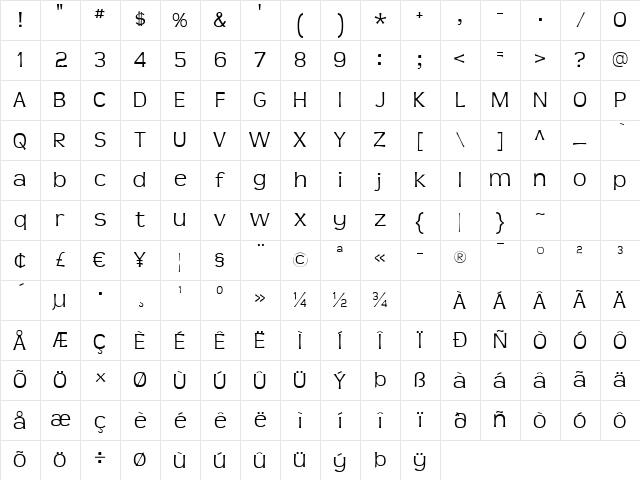
Teen Light Regular
Designer: Ray Larabie & Martin Archer
Design Context for Teen Light
Teen Light is a composed and adaptable typeface that performs quietly and consistently across a wide range of design contexts. Its slender proportions lend an understated elegance to any composition.